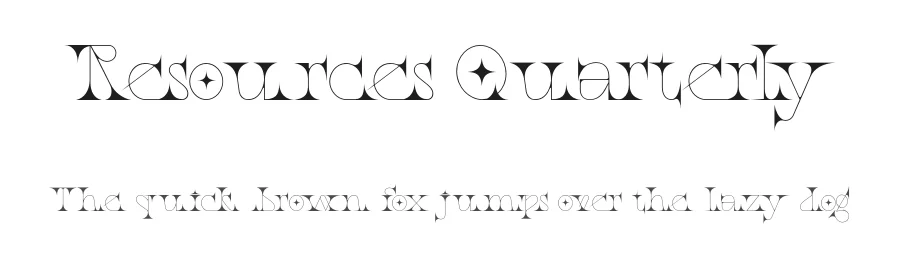
About Black Point Serif Font
Sarid Ezra -
| Designer | Sarid Ezra |
Black Point Serif Font is a decorative font that shines as a display or heading face. Pair it with a clean sans-serif or serif font for body text β the contrast creates a clear hierarchy while the two styles stay balanced and easy to read.
Black Point Serif Font
by Saridezra